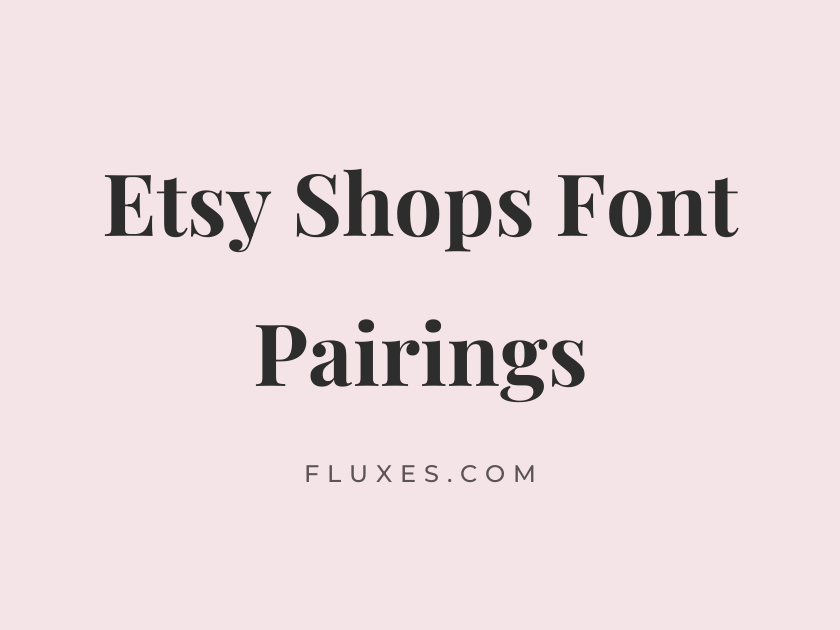
32 Best Font Pairings for Etsy Shops
Etsy shops live or die on first impressions, and font choice is often the fastest way to signal handmade warmth, refined luxury, playful charm, or minimalist calm before a shopper reads a single word of copy. The right pairing on a shop banner, product card, or About section builds trust and hints at the personality of the maker behind it. These font combinations are all free on Google Fonts and chosen for how well the display and body styles actually work together, not just how they look in isolation.
Playfair Display + Lato
Handcrafted with Care
Each piece is made to order in a small studio using sustainable materials.
This is the classic boutique pairing: a high-contrast serif with dramatic thick-thin strokes next to a humanist sans with an easy, even rhythm. It reads as established and trustworthy, ideal for jewelry, leather goods, or curated home decor shops.
Cormorant Garamond + Nunito Sans
Delicate, Timeless Design
Inspired by vintage botanicals, finished by hand in small batches.
Cormorant Garamond’s slender, romantic letterforms pair naturally with Nunito Sans because both share a soft, rounded warmth rather than mechanical precision. It suits vintage-inspired jewelry, pressed flower art, or bridal accessories.
Abril Fatface + Poppins
Bold Statement Pieces
Chunky ceramics and oversized prints designed to stand out on any shelf.
Abril Fatface’s heavy, high-contrast curves need a body font with enough geometric confidence to keep pace, and Poppins delivers that without competing for attention. This works well for maximalist decor shops or bold statement accessories.
Pacifico + Quicksand
Sweet Little Treats
Hand-piped icing and playful flavors made fresh every weekend.
A bouncy script and a rounded sans share the same friendly, approachable mood, which keeps the pairing playful without tipping into chaos. Bakeries, candle shops, and kids’ party goods all benefit from this lighthearted combination.
Amatic SC + Josefin Sans
Rustic Farmhouse Finds
Reclaimed wood and hand-forged metal, aged for a lived-in look.
Amatic SC’s tall, narrow, hand-cut feel contrasts nicely against Josefin Sans’s geometric precision, giving a farmhouse label just enough polish to avoid looking amateur. It fits rustic home goods and reclaimed wood shops especially well.
Fraunces + Work Sans
Modern Artisan Goods
Small-batch pottery thrown and glazed in our home studio.
Fraunces brings a warm, slightly quirky serif energy while Work Sans stays neutral and legible, letting the display font carry the personality. This pairing suits modern ceramics, stationery, or design-forward craft shops.
Bebas Neue + Nunito
Wear It Loud
Screen-printed graphics on soft, pre-shrunk cotton tees.
Bebas Neue’s tall condensed caps work as a poster-style headline, and Nunito’s rounded softness keeps the supporting text from feeling too harsh. It reads well for streetwear, graphic tee shops, and youth-oriented brands.
Great Vibes + Montserrat
Forever, From the Start
Custom invitations designed to match your wedding day palette.
A flowing script against a clean geometric sans is a dependable formula because the contrast between ornamental and utilitarian keeps both legible. It is a natural fit for wedding stationery, calligraphy, and bridal accessory shops.
Libre Baskerville + Open Sans
Thoughtfully Made Goods
Every order is packaged with care and shipped within two business days.
This pairing leans on shared old-style proportions and dependable readability rather than dramatic contrast, making it a safe, versatile choice. It suits general Etsy shops that want to feel credible across many product categories.
Dancing Script + Karla
Made Just for You
Personalized gifts with names, dates, or a short message of your choice.
Dancing Script’s casual, hand-lettered warmth needs a plain, understated sans to ground it, and Karla’s low-key character does exactly that. It works nicely for personalized gifts, greeting cards, and custom name items.
Playball + Raleway
Glow and Unwind
Soy wax candles hand-poured with essential oil blends.
Playball’s rounded, bubbly script feels handmade while Raleway’s elegant thin strokes add a touch of refinement, balancing cozy and upscale. This combination flatters candle shops, bath products, and self-care brands.
Cinzel + EB Garamond
Enduring Classic Style
Inspired by antique design, crafted with modern materials.
Cinzel’s inscriptional, Roman capitals and EB Garamond’s old-style body text share the same historical gravity, giving a shop an air of permanence. It suits antique-style jewelry, heraldic designs, or classical home decor.
Caveat + PT Sans
Notes Worth Keeping
Recycled paper journals bound by hand, one at a time.
Caveat’s natural handwriting rhythm pairs well with PT Sans because the body font stays humble and legible without echoing the same casual style too literally. Planner, journal, and stationery shops suit this combination especially well.
Tips for choosing a pairing on Etsy
Match the pairing to your product photography style first; a heavily textured, rustic product rarely suits an ultra-refined display serif, and vice versa.
Keep body text legible at small sizes since most shoppers browse on mobile; avoid scripts or condensed display faces for descriptions and policies.
Reuse the same pairing consistently across your banner, listing images, and packaging so the shop feels like one cohesive brand rather than several unrelated stores.